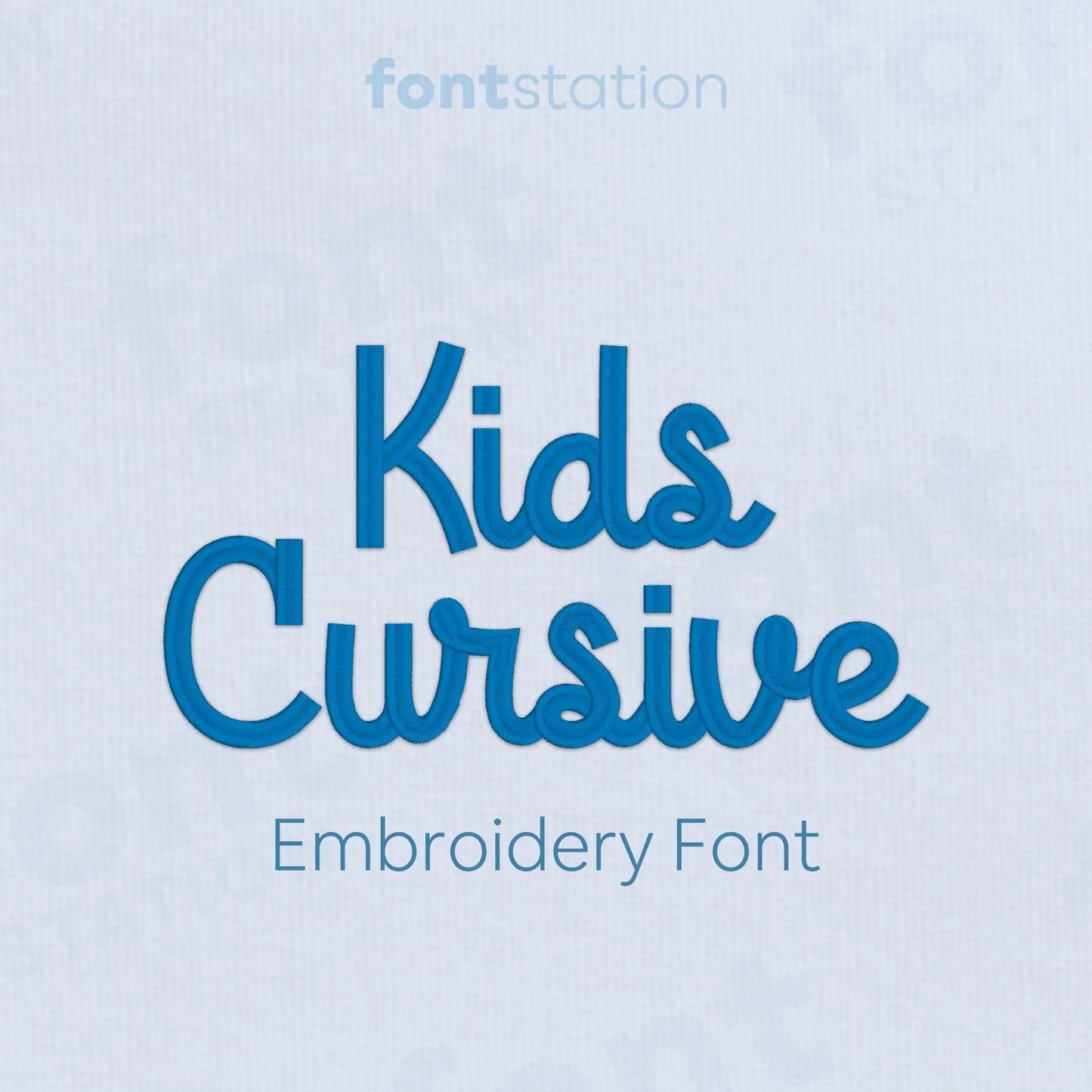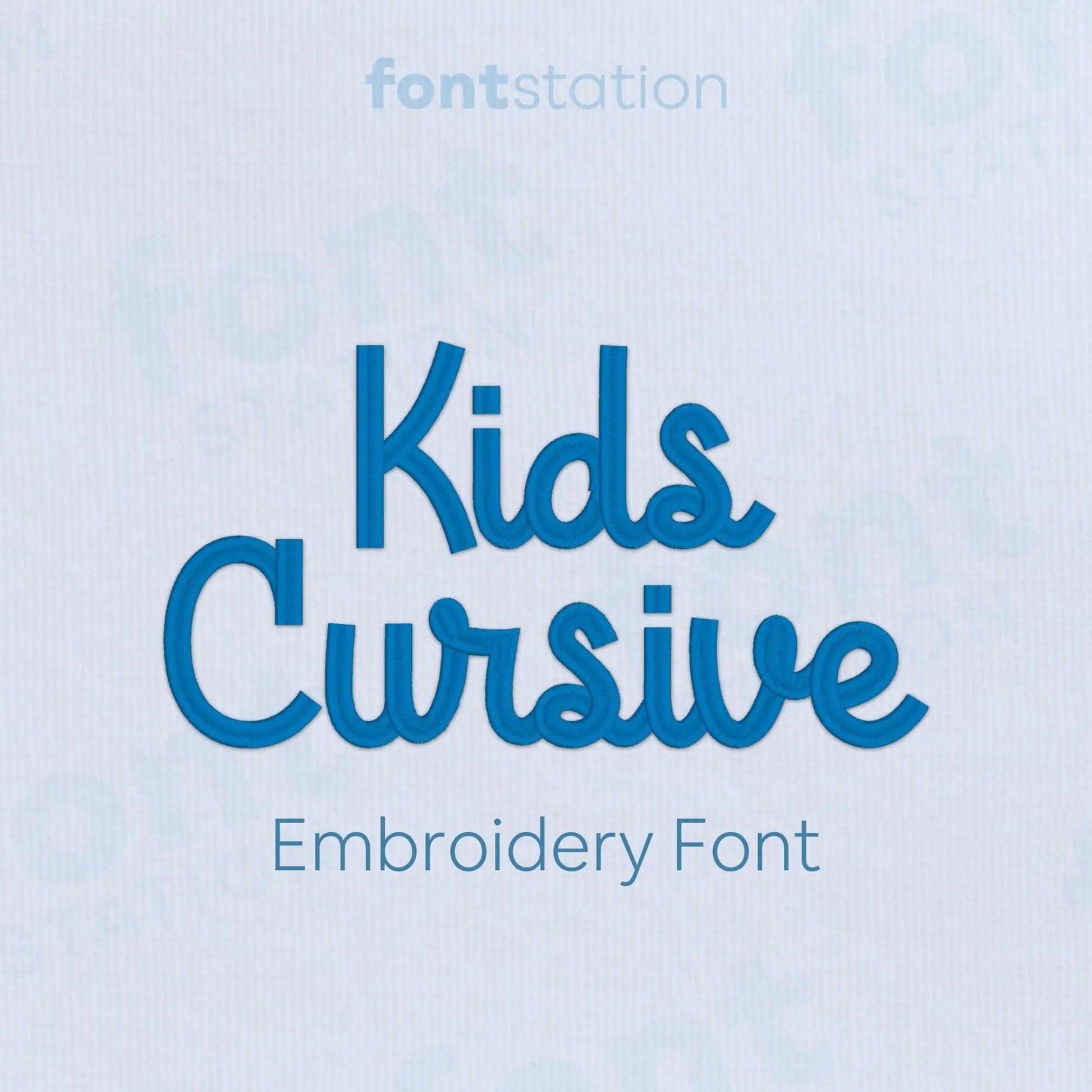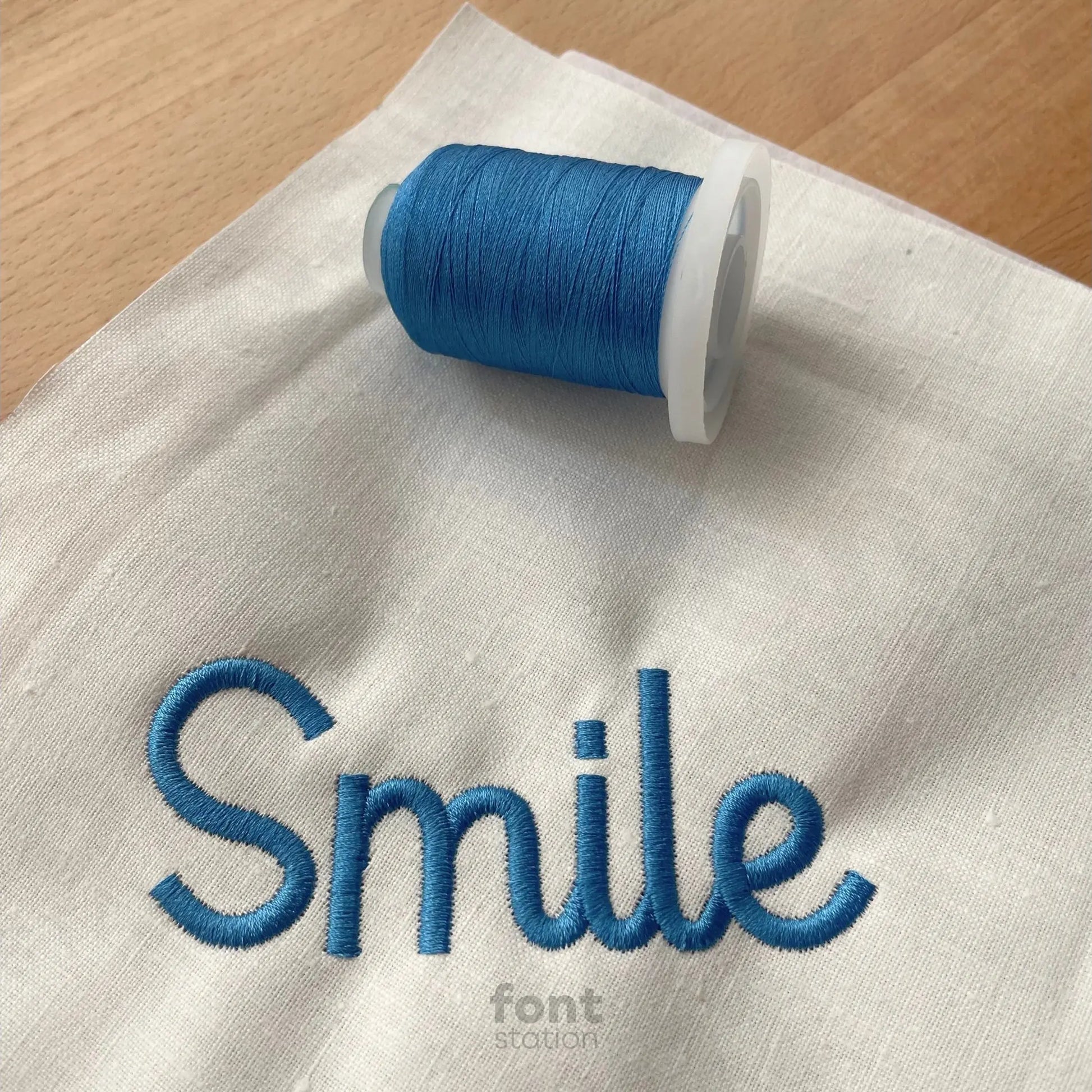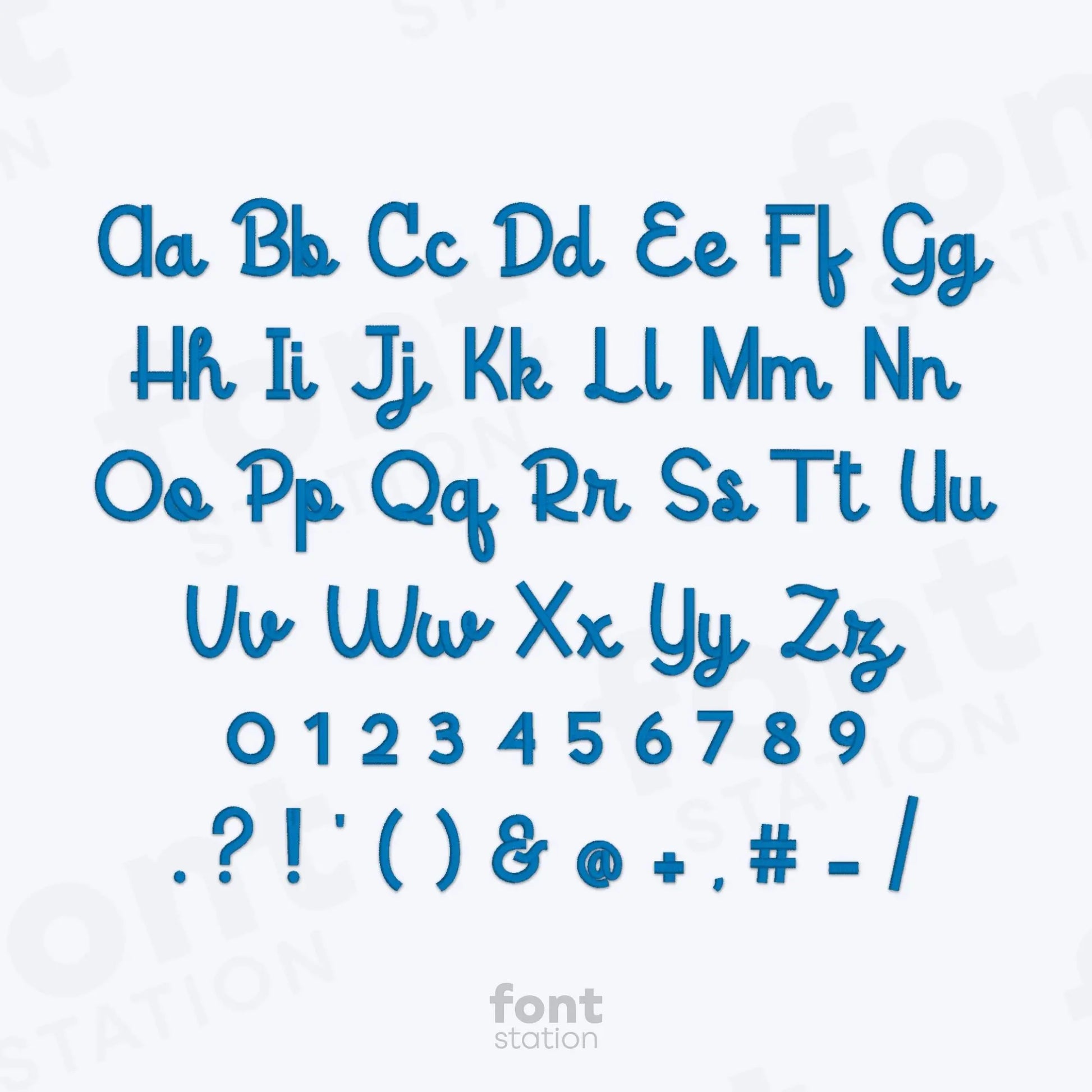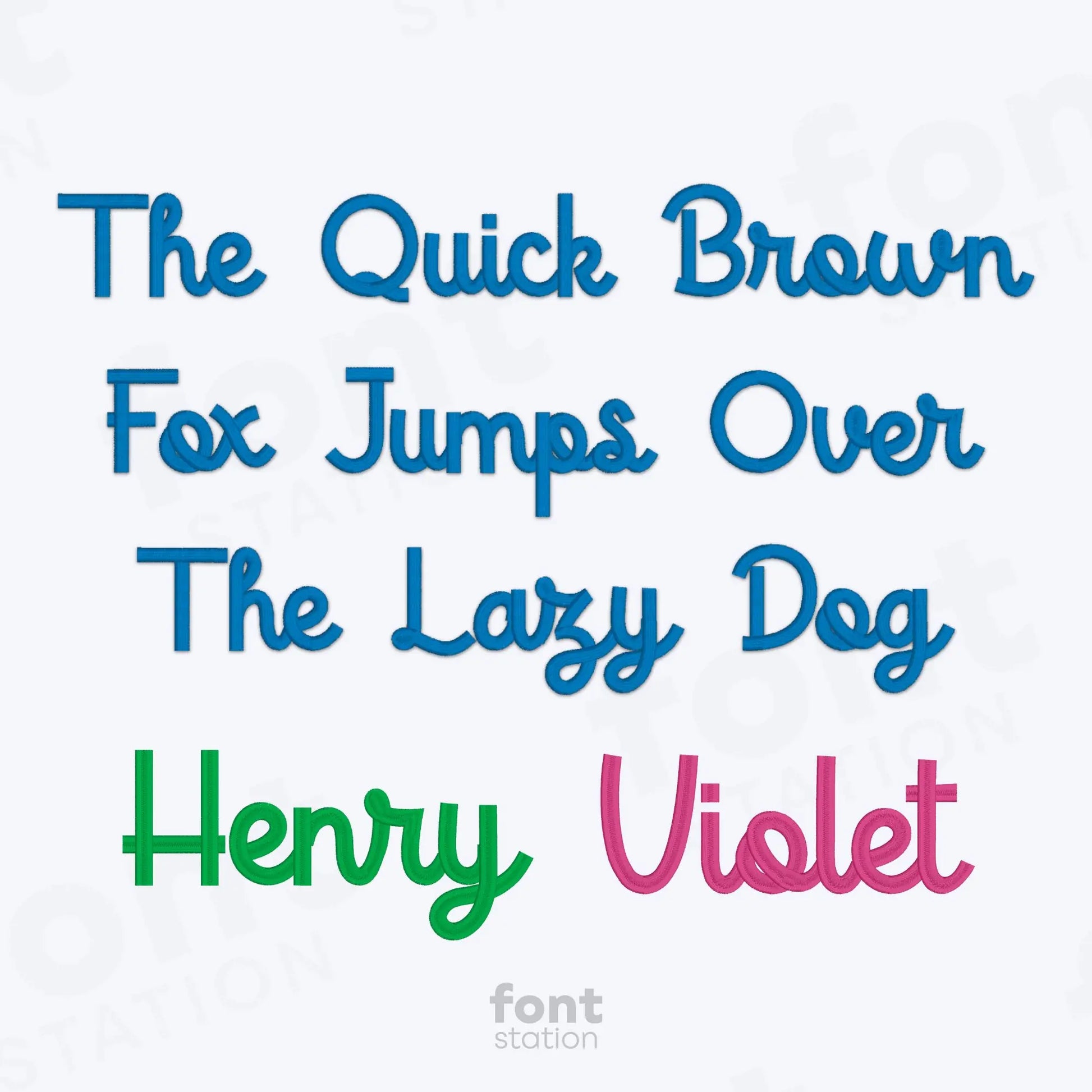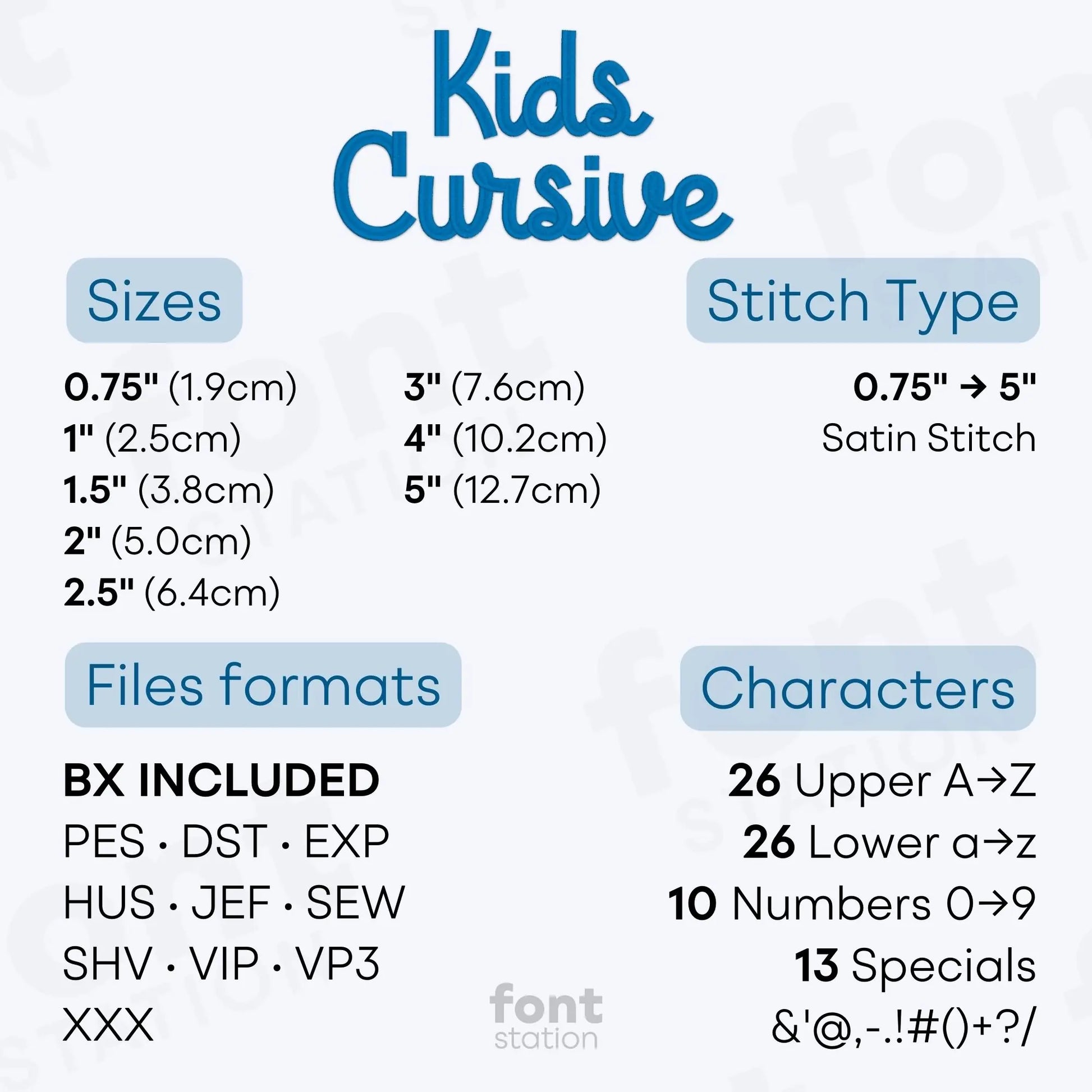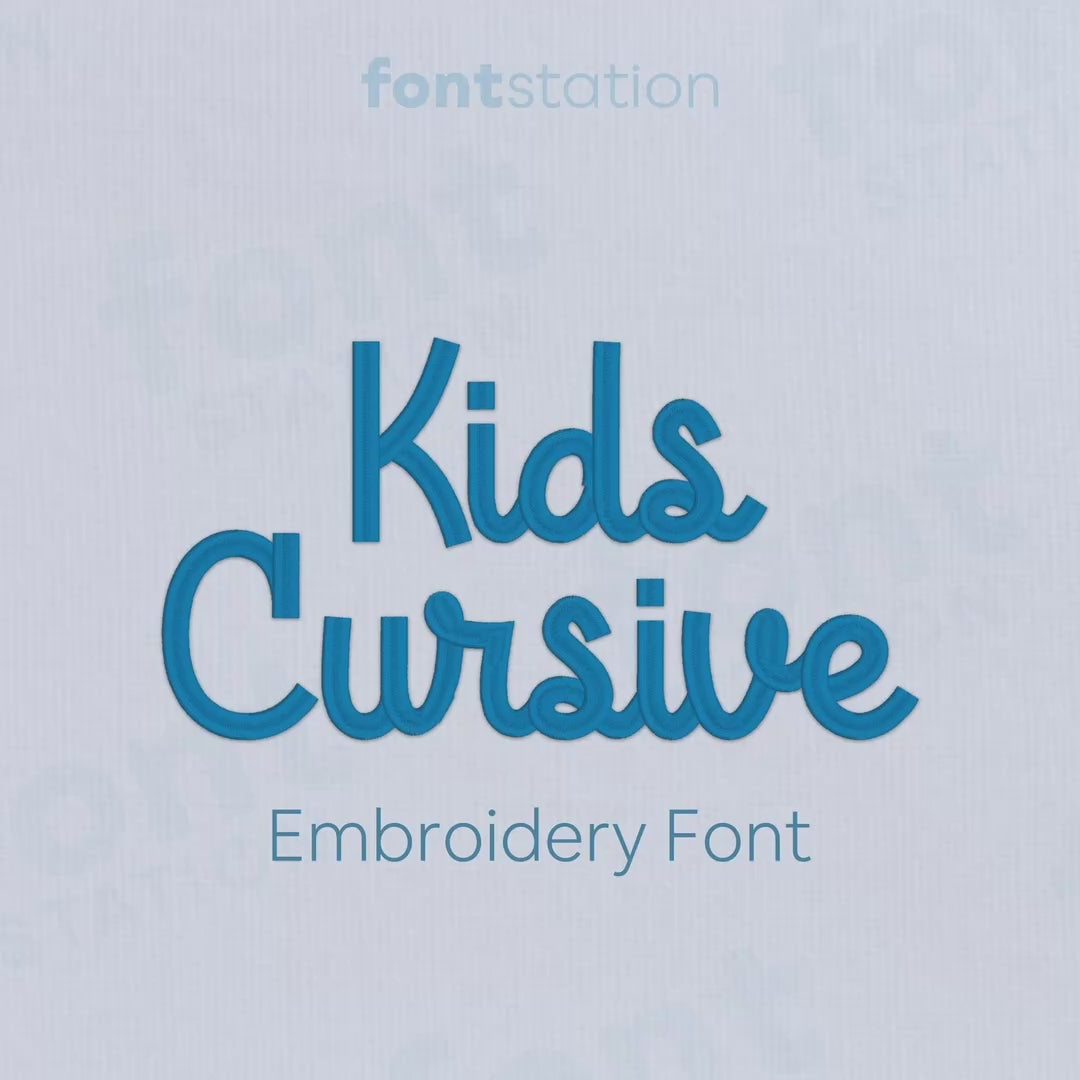
Kids Cursive Embroidery Font
Introducing our Kids Cursive embroidery font - a playful, child-friendly alphabet of smooth, flowing letters. These machine-ready letters stitch beautifully on any embroidery machine, perfect for baby gifts, kids’ names, and custom embroidery projects or playful designs.
About the Kids Cursive Embroidery Font
Characters: 26 uppercase, 26 lowercase, 10 numbers, and symbols & ' @ , - . ! # ( ) + ? /
Our Kids Cursive embroidery font brings a sweet, playful look to your embroidery projects.
Perfect for little ones, this cheerful embroidery font features a smooth, child-friendly cursive alphabet that’s ideal for boys, girls, and baby-themed designs. Whether you're personalizing clothes, towels, or nursery gifts, these machine-ready embroidery letters stitch beautifully and add a custom touch to every project.